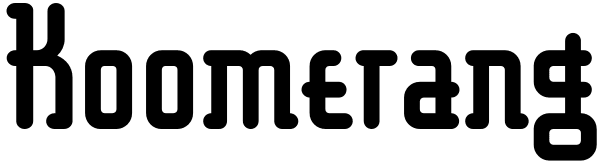
Koomerang
I arrived this concept as a means to fulfil a need for a simple yet radical semi-sans with rounded terminals. My concept called for a modular approach so a single weight font family resulted, the monoline stroke weights being one-eighth of the cap...
Koomerang Canberra
Koomerang Uluru
Koomerang
Koomerang Kakadu
Koomerang Bondi